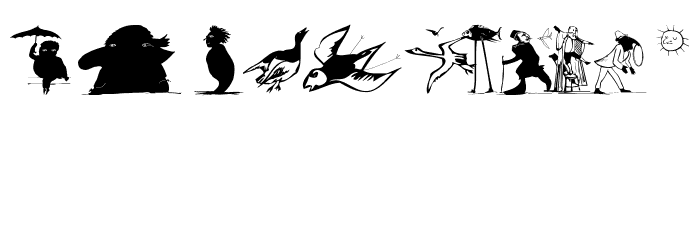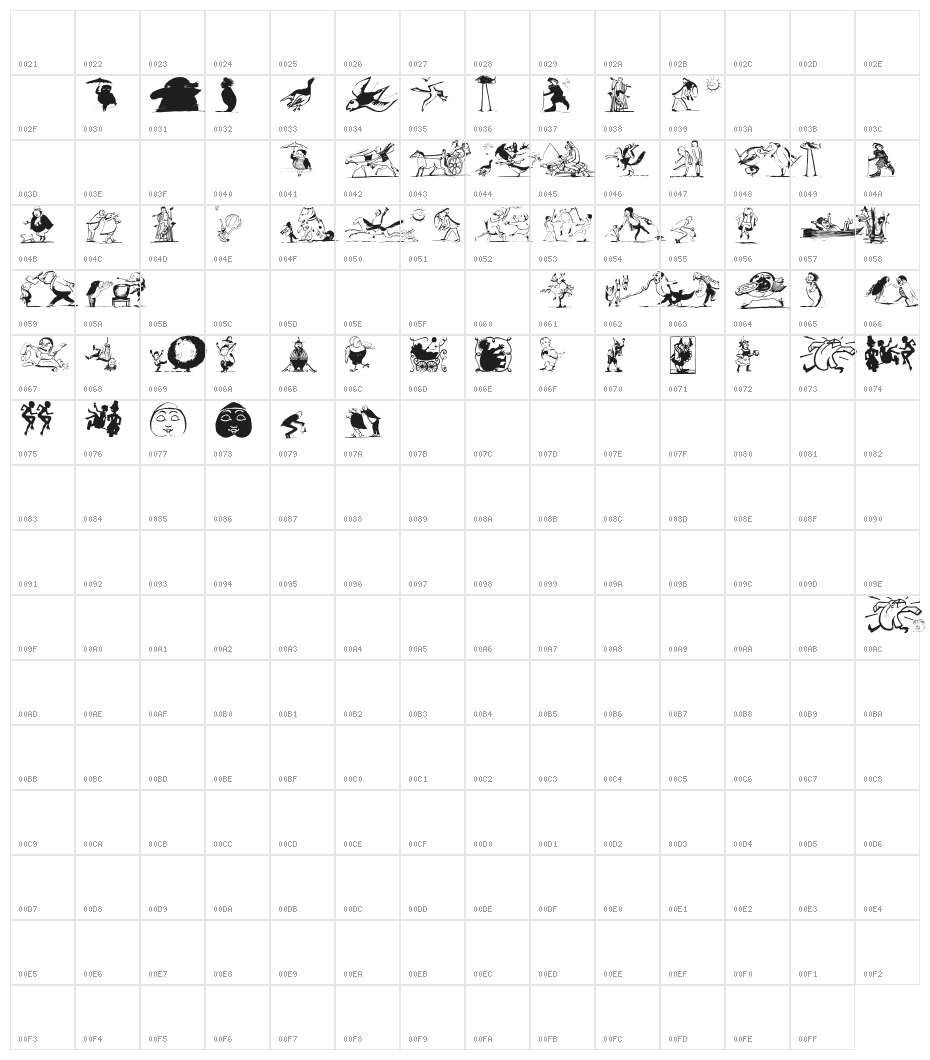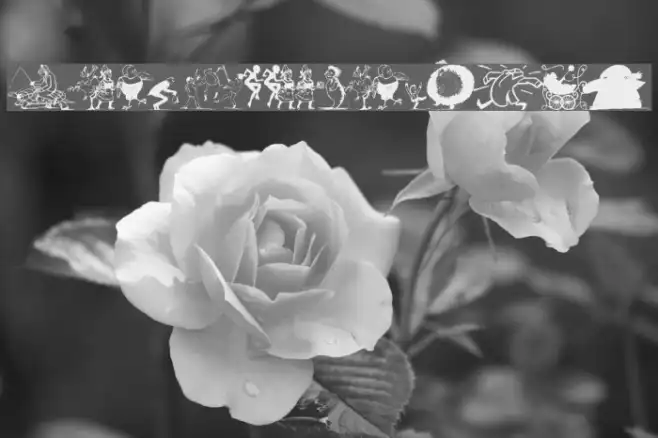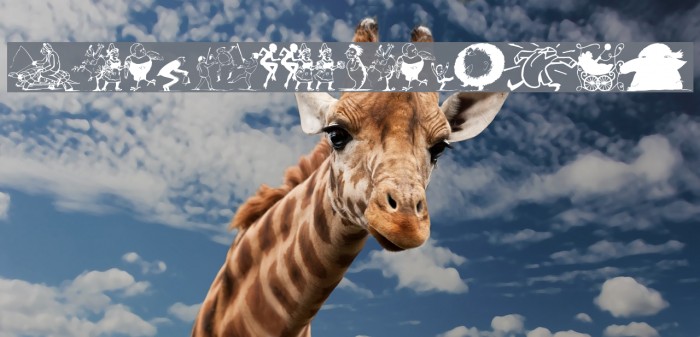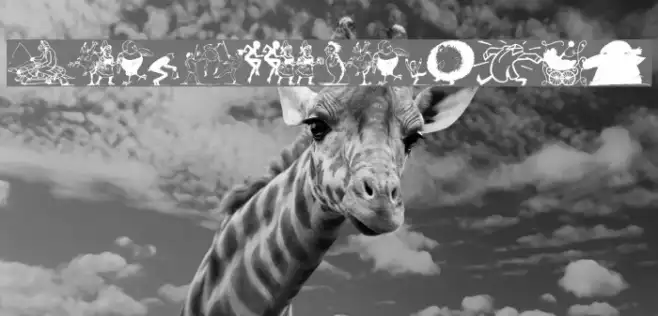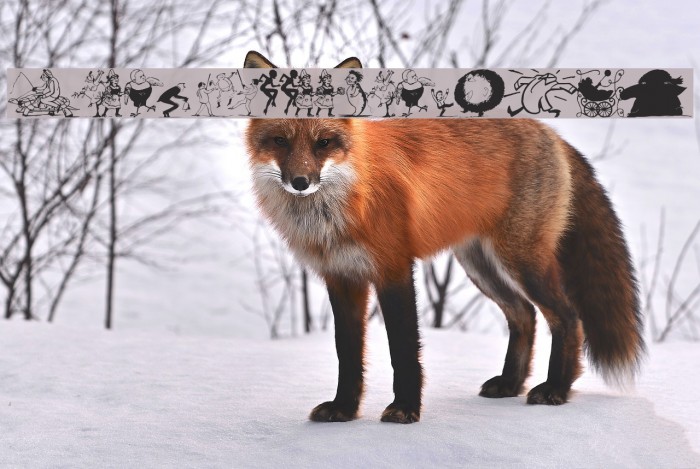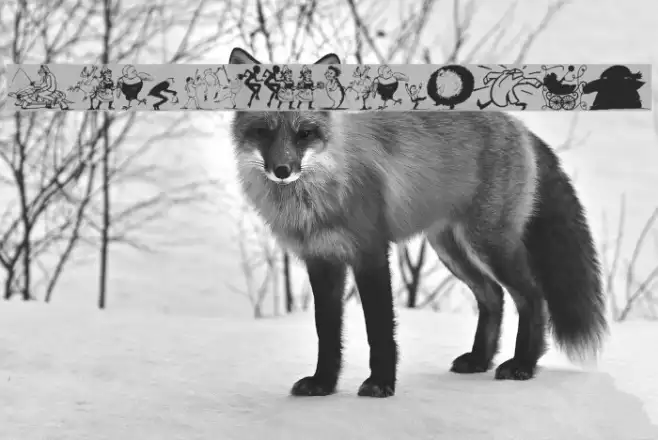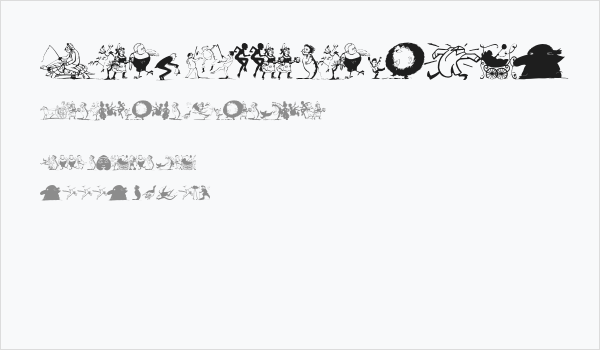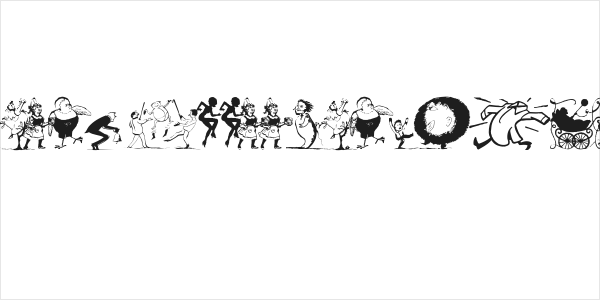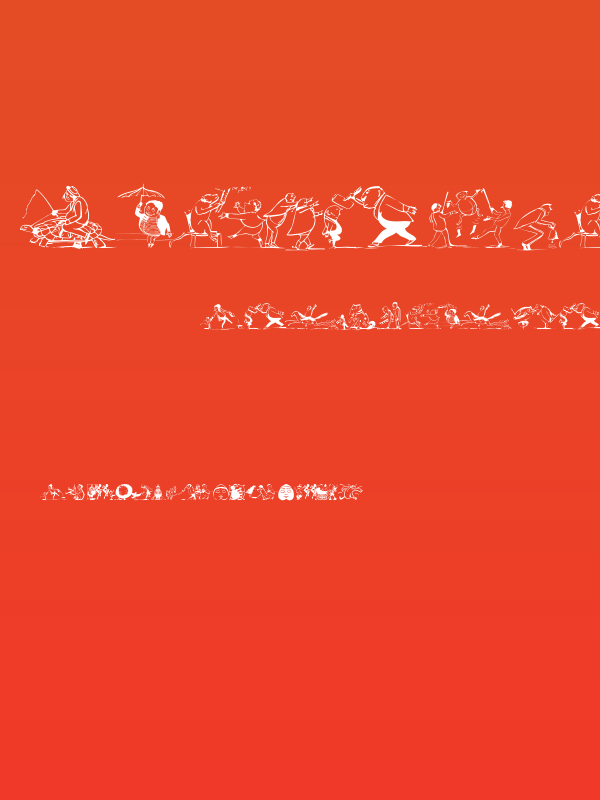
EarlySurrealism1 Font
EarlySurrealism1 Description
A highly decorative and surrealist dingbat font composed of whimsical, abstract, and fantastical illustrations instead of traditional letterforms. Each character is represented by a unique, imaginative scene or figure, often featuring exaggerated proportions, playful interactions, and dreamlike elements. The style is reminiscent of early 20th-century surrealist art, with a hand-drawn, sketch-like quality and strong black-and-white contrast.
| Overall Style | Surreal, Decorative, Artistic |
| Use Case | Illustrative elements, decorative initials, visual storytelling, creative projects. |
| Proposed Projects | Art posters, album covers, editorial illustrations, creative branding, surrealist event invitations. |